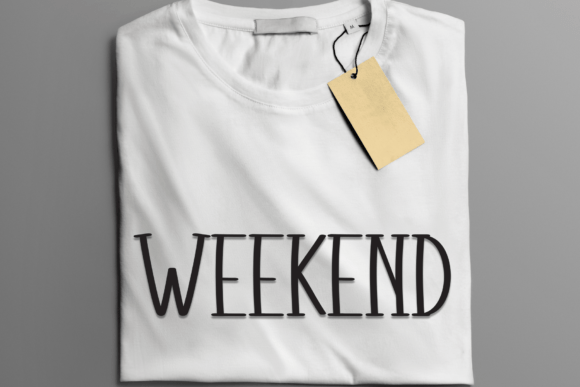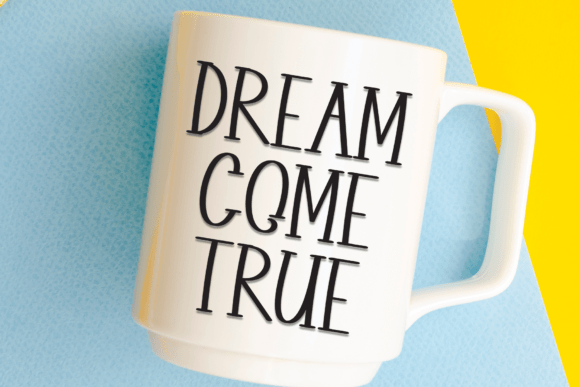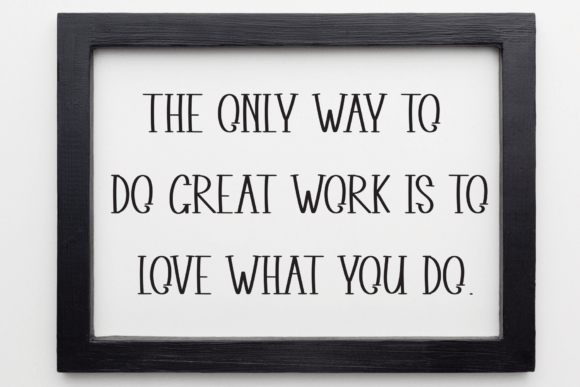
Introduction to Notes Easter Font
Notes Easter is a casual and neat display font that radiates a fresh, friendly vibe.
With clean lines and a relaxed structure, it’s perfect for packaging, posters, and social media graphics The approachable design adds charm and clarity to projects while maintaining a polished appearance.
Key Features of Notes Easter Font
Why Choose Notes Easter Font?
Notes Easter Font offers exceptional quality and versatility, making it a valuable addition to your design toolkit. Whether you’re creating for personal projects or commercial use, Notes Easter Font delivers professional results.